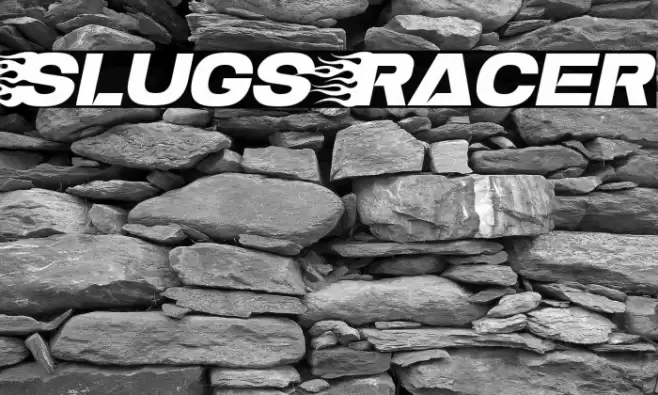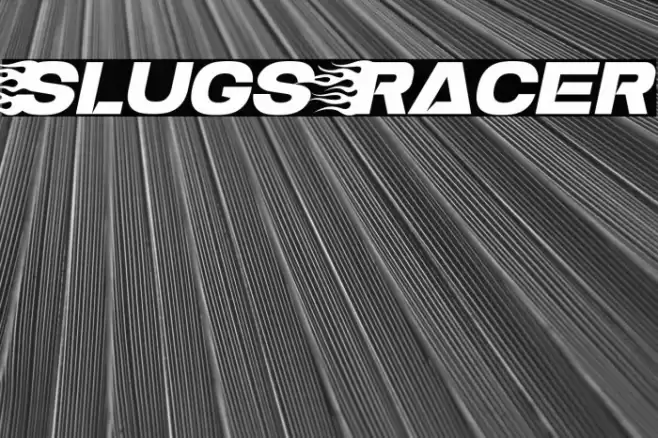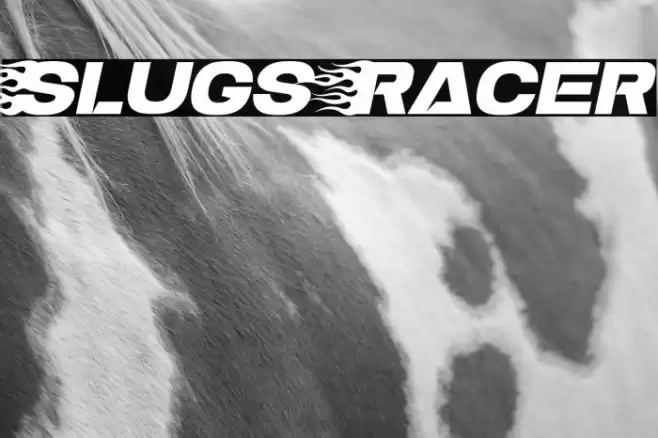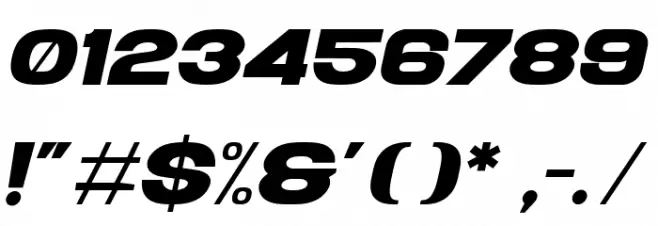
Slugs Racer Font
Slugs Racer Description
This dynamic and bold typeface exudes a sense of speed and energy, with its italicized and slanted characters that suggest motion. The uppercase letters are particularly striking, featuring sharp angles and a streamlined appearance that enhances the font's racing theme. The numerals and special characters maintain this energetic style, ensuring consistency across all glyphs. The font's design is perfect for projects that require a sense of urgency or excitement, making it ideal for automotive branding, sports events, or any context where a fast-paced aesthetic is desired.
A bold, italicized typeface with a dynamic, racing-inspired design from Uncategorized fonts.
- Font: Slugs Racer
- Proposed Projects: Ideal for automotive branding, sports event promotions, racing team logos, and dynamic advertising campaigns.
- Use Case: Logos, Headlines, Advertising